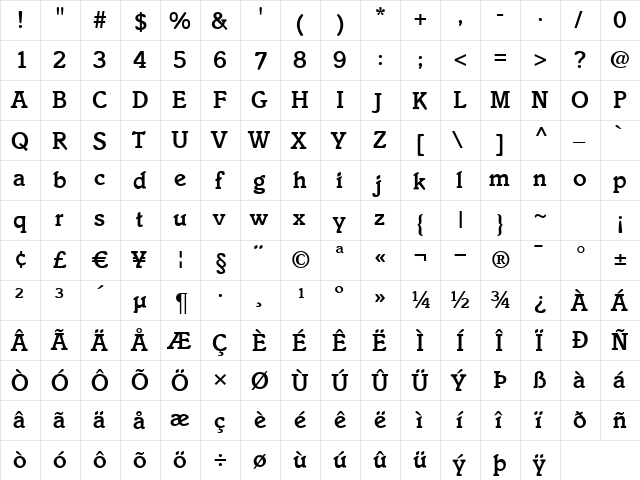
I831-Slab Bold Font Preview
I831-Slab Bold
Design Context for I831-Slab Typeface
I831-Slab features prominent, blocky serifs that give it a confident, grounded presence — equally at home in editorial settings and bold branding work. Its bold stroke weight gives it real presence on the page.
Suited to magazines, political campaign materials, bold packaging, and any setting where authority matters.
Pro Tip: Use I831-Slab for headlines and subheadings where its slab serifs can make an impression. It also holds up well in mid-size body copy thanks to its sturdy construction.